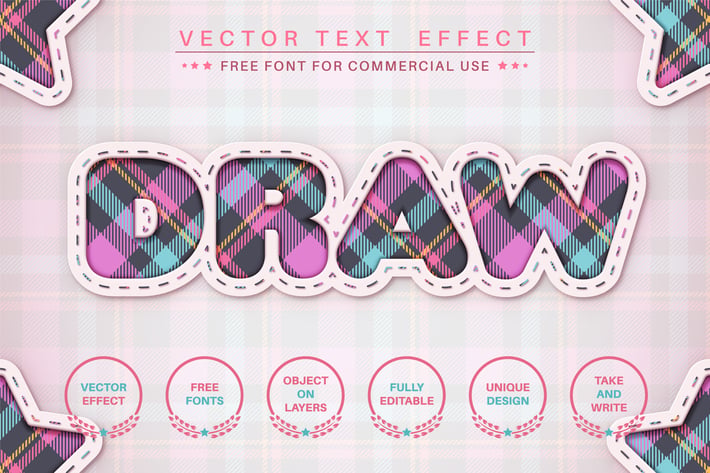
Tartan craft - editable text effect, font style
Hello! I'm happy to introduce my new text effect "Tartan craft". Just write your word and the effect will apply! Be as creative as you like to be in expressing yourself using this unique “Tartan craft”. Effect is perfect for any project that needs a unique handy touch whatever else your imagination leads you to!